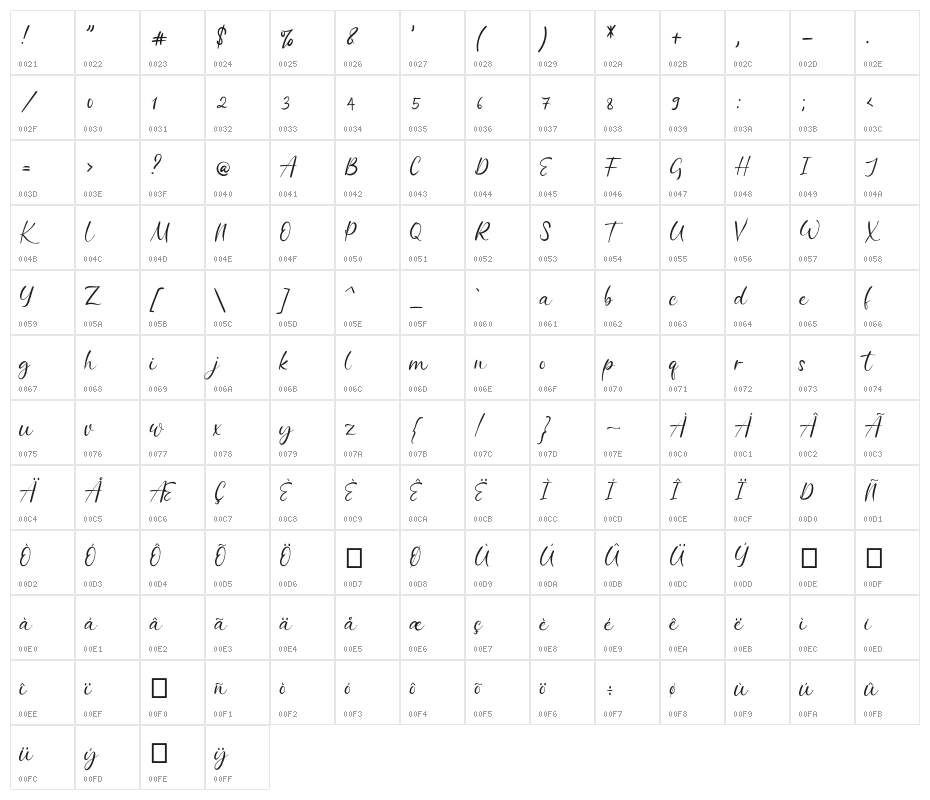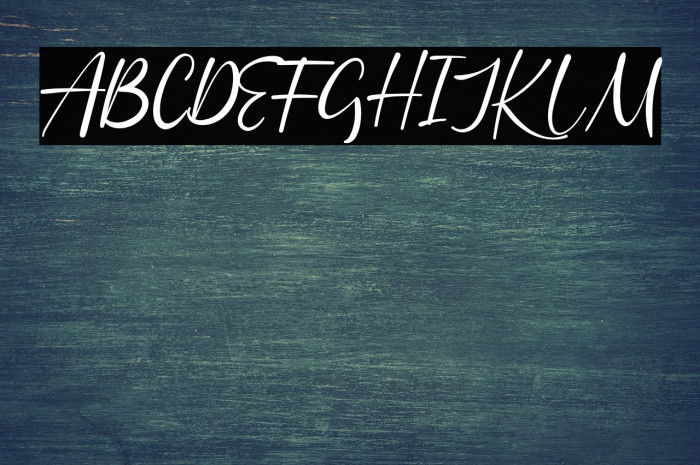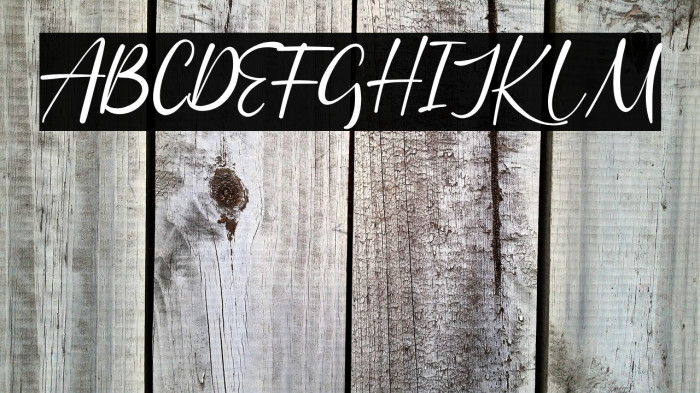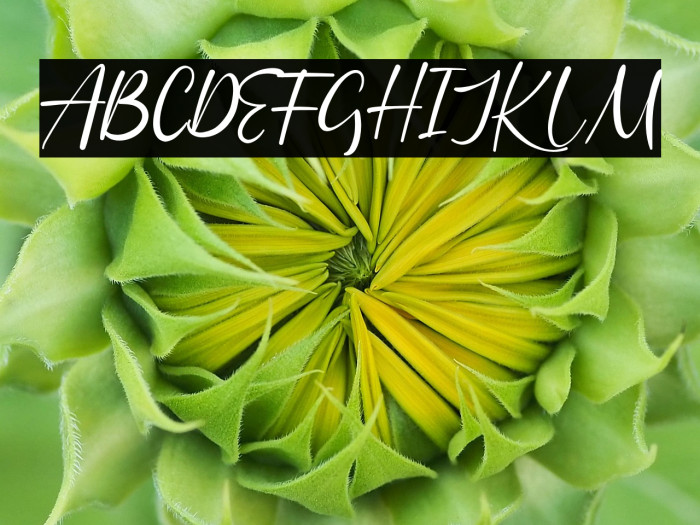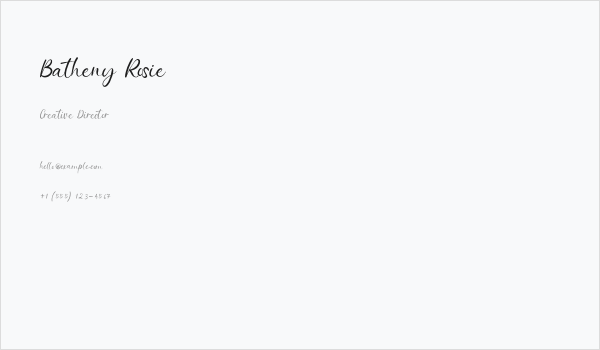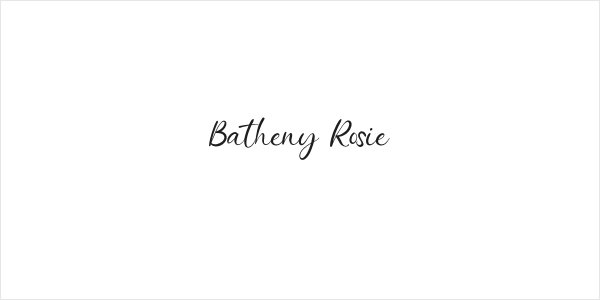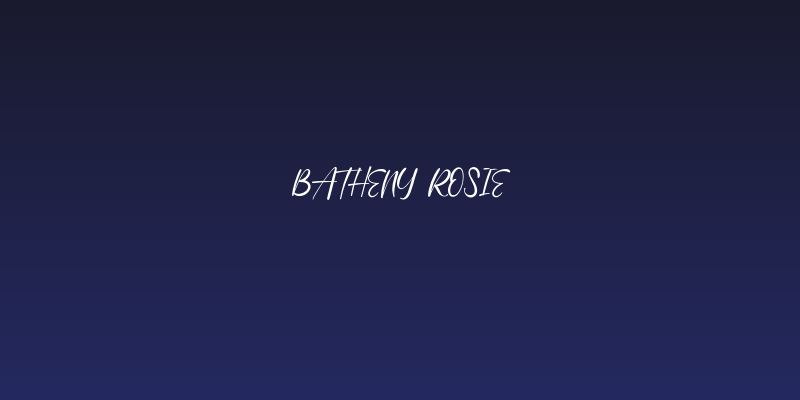
Batheny Rosie Font
Batheny Rosie Description
This font features an elegant and flowing script style, characterized by its smooth, cursive strokes and a handwritten appearance. The uppercase letters are tall and graceful, with sweeping curves that give a sense of movement and fluidity. The lowercase letters maintain a consistent style, with some letters featuring loops and flourishes that enhance the overall aesthetic. The numerals are clear and legible, maintaining the same cursive style. Special characters are designed to match the flowing nature of the alphabet, ensuring a cohesive look across all text. This font exudes a sense of sophistication and charm, making it suitable for a variety of design projects.
| Overall Style | Elegant, Sophisticated |
| Proposed Projects | Ideal for wedding invitations, greeting cards, branding, and elegant logo designs. |